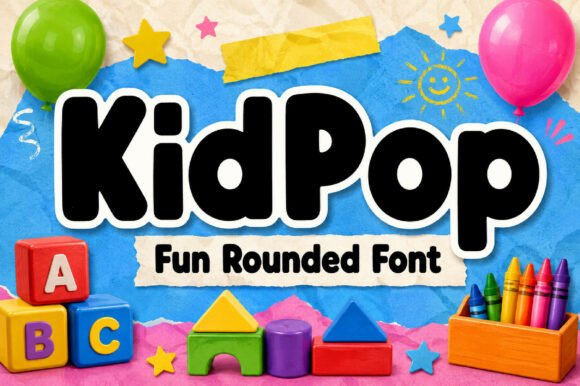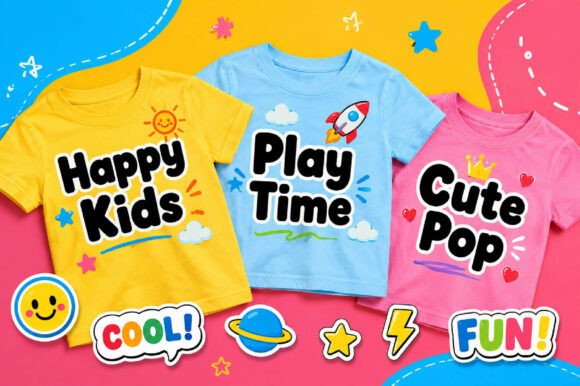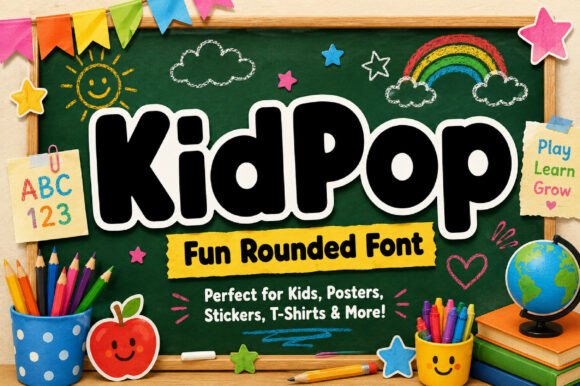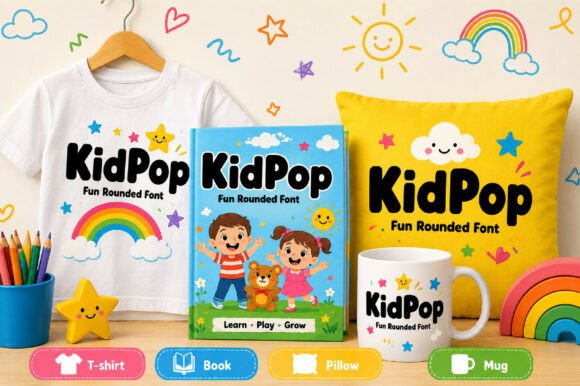
Introduction to Kidpop Font
Introducing KidPop, the lively bubble font that encapsulates the joy of childhood.
KidPop is a robust, whimsical font thatโs ideal for enlivening kids-themed designs and projects Its unique letterforms take inspiration from playful cartoons, infusing fun and energy into every design.
Key Features of Kidpop Font
Why Choose Kidpop Font?